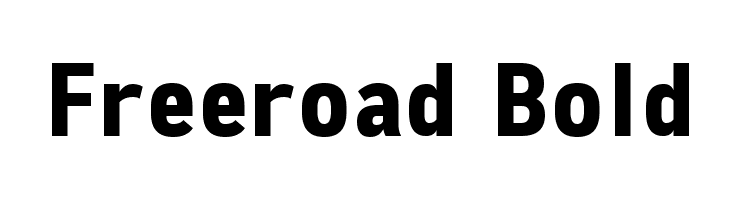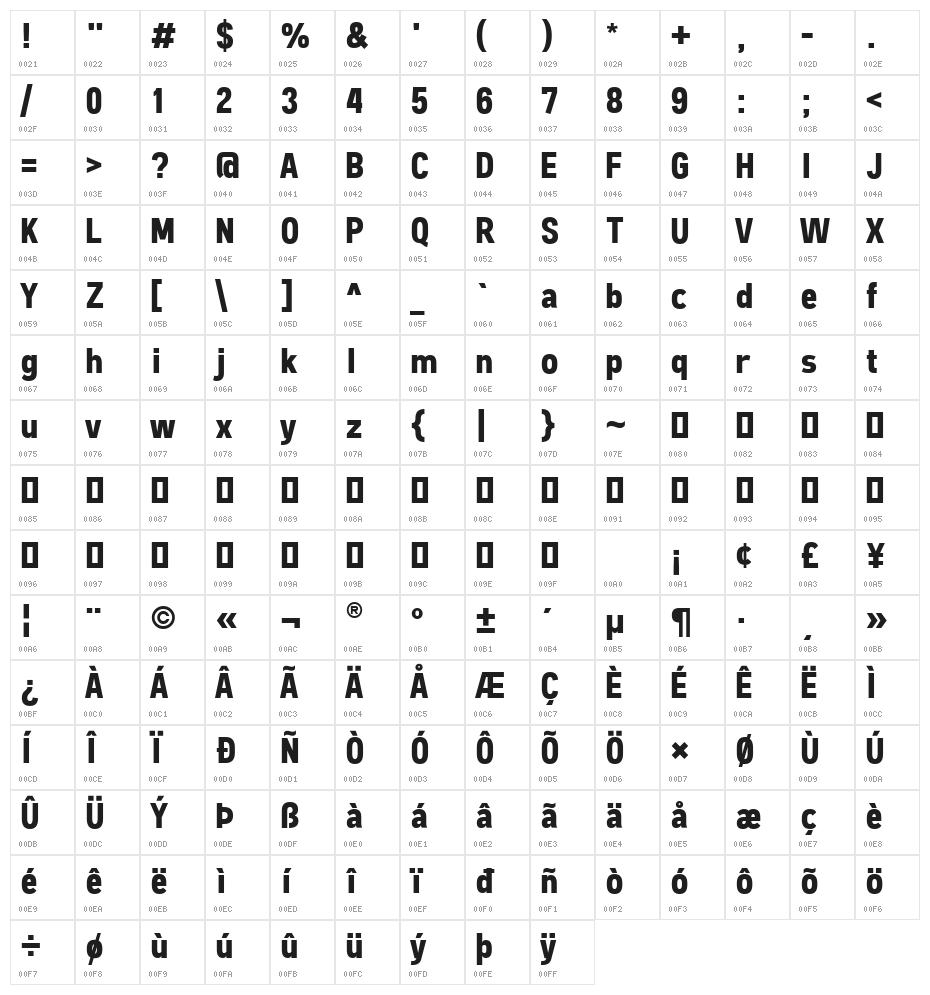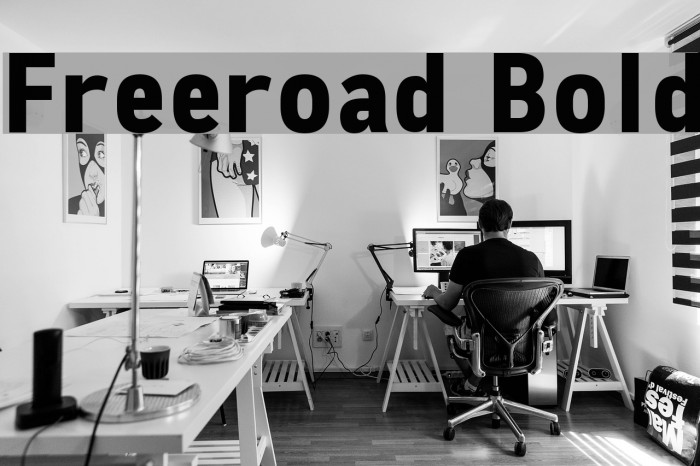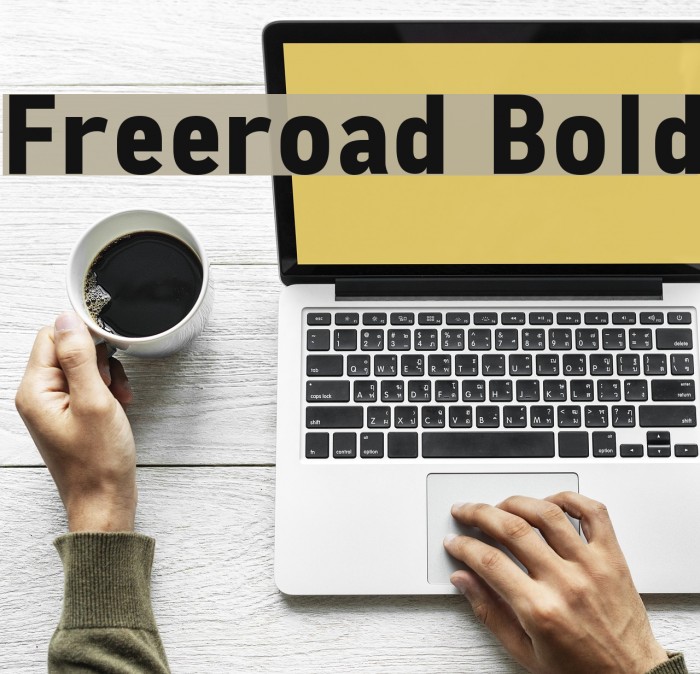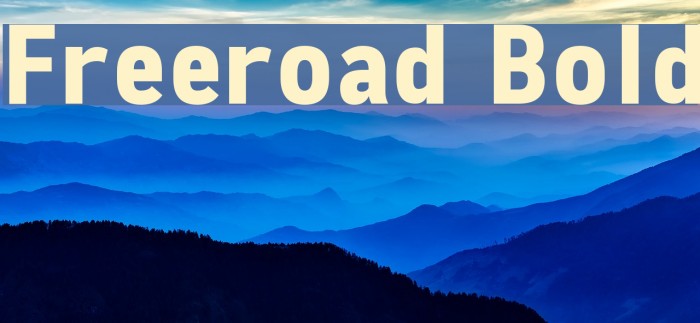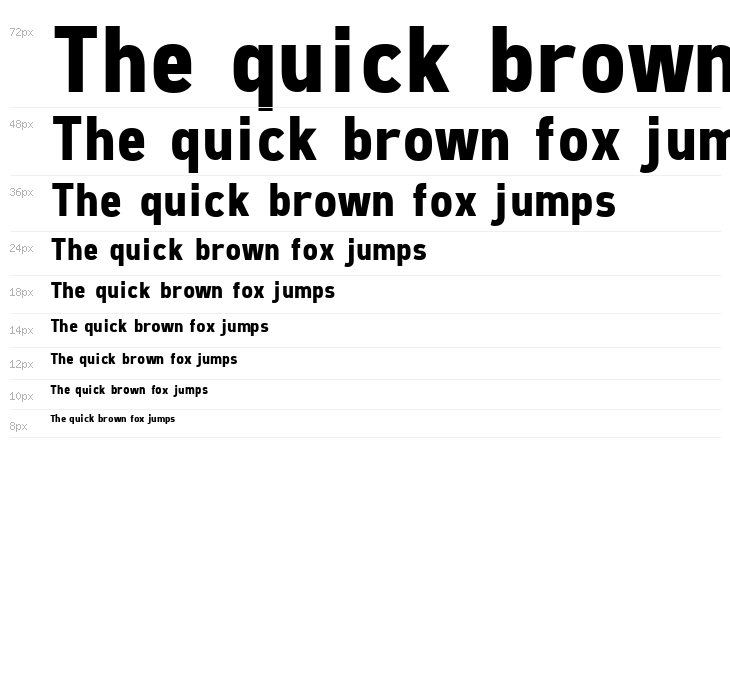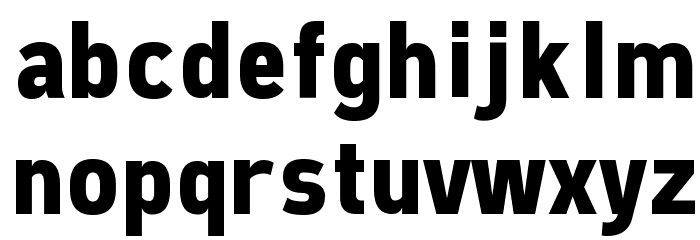
Freeroad Bold Font
Freeroad Bold Description
This font is a bold, sans-serif typeface characterized by its strong, impactful presence. The letters are uniformly thick, providing a sense of stability and confidence. The uppercase and lowercase characters maintain a consistent weight, enhancing readability and making it suitable for various display purposes. The numerals are clear and distinct, ensuring legibility in any context. Special characters are well-defined, adding versatility to the font's application. Its bold nature makes it ideal for headlines and attention-grabbing text, while its clean lines ensure clarity.
Font by Jayvee D. Enaguas - grandchaos9000.deviantart.com
| Proposed Projects | Ideal for branding, advertising, posters, and any project requiring bold, attention-grabbing text. |